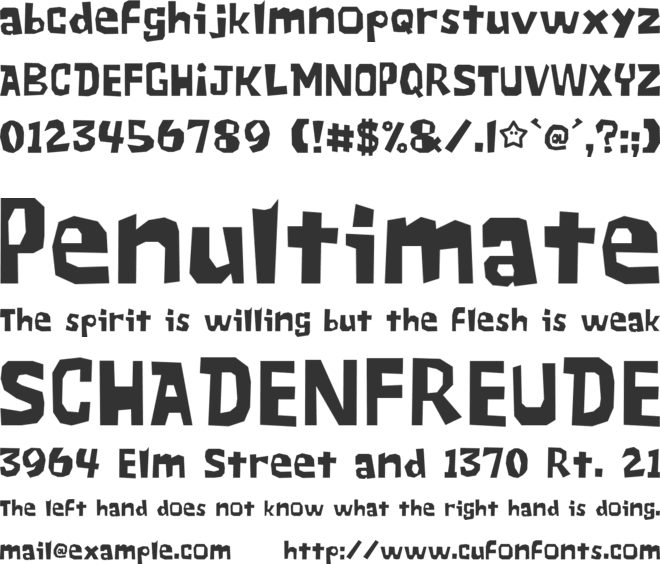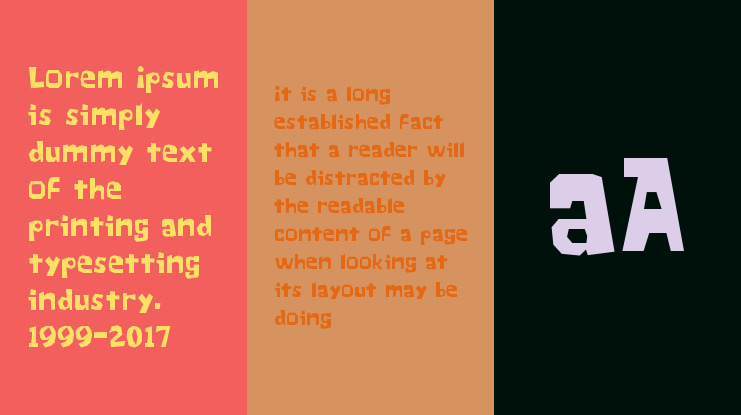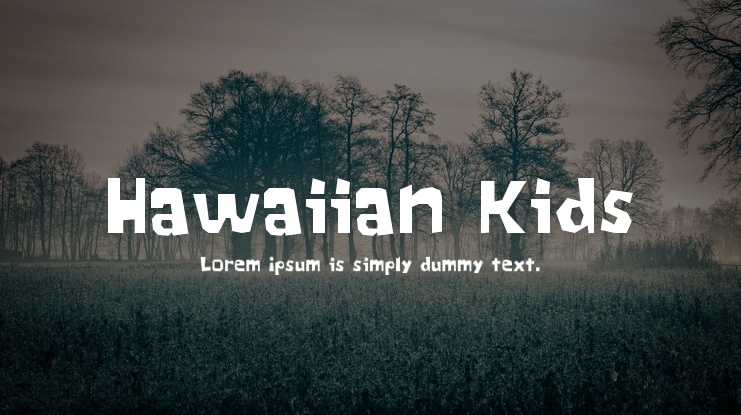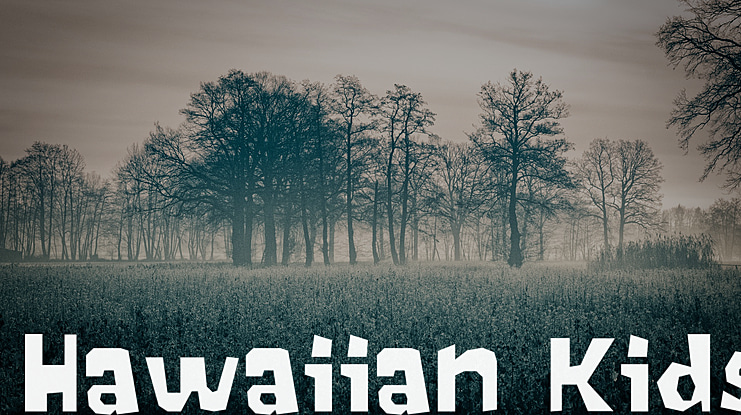
Hawaiian Kids Font
NOTE: This font has now been updated to include more symbols and Alternate z(plus accents) in as well as Polish letters for native Polish speakers of Poland.
Hawaiian kids is a new reinterpretation of the title card lettering from the hit Nickelodeon show, SpongeBob SquarePants.
All glyphs are made out of polygons
Inspired by polygonal title card lettering seen in some episodes in newer seasons.